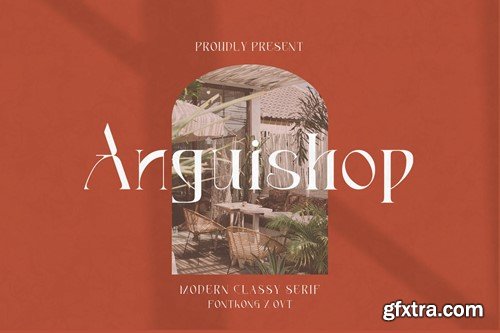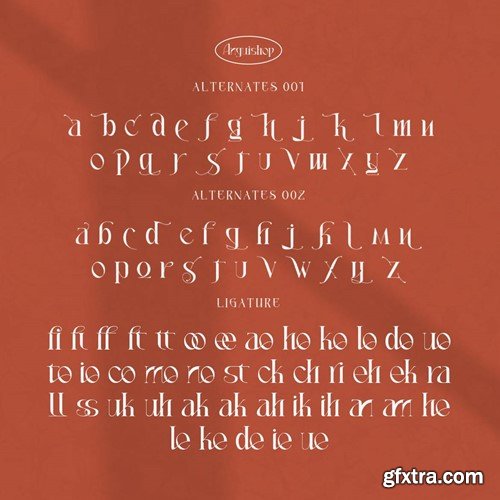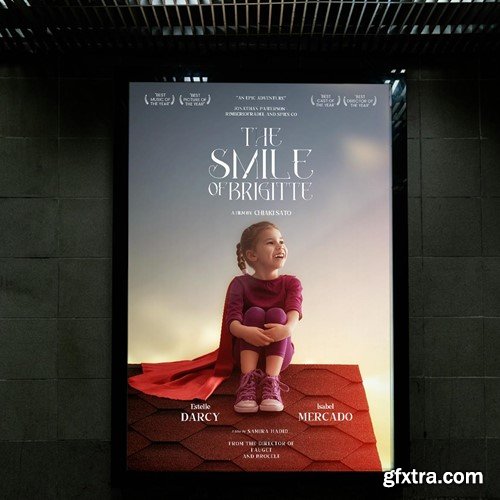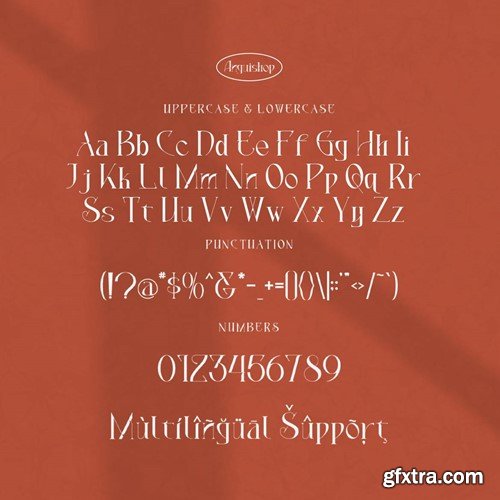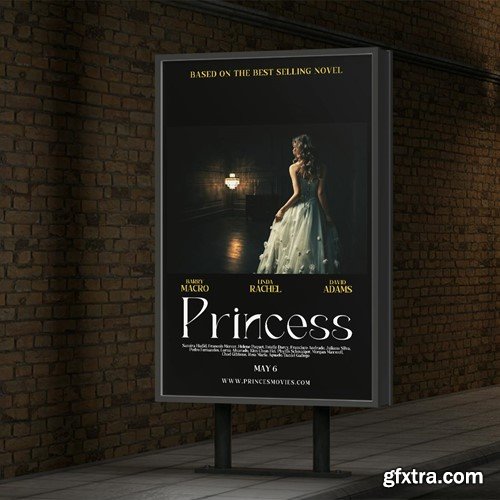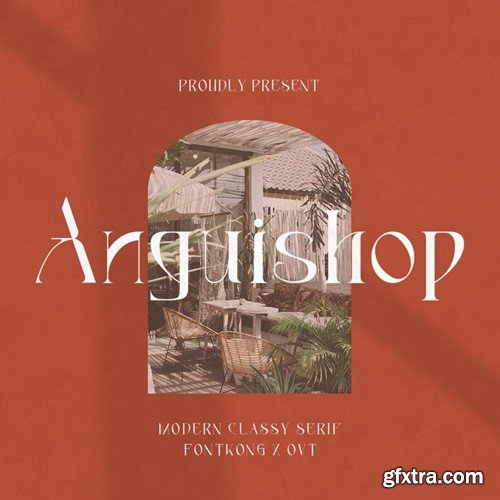
anguishop - 现代简约衬线字体 6CBLEYG
Anguishop - Modern Classy Serif Font Introducing "Anguishop," a modern and classy serif font designed for sophistication and style. This typeface captures the essence of contemporary elegance, blending traditional serif characteristics with a sleek modern twist. Perfect for designers who appreciate finesse in their typography, Anguishop is ideal for luxury branding, high-end editorial content, and sophisticated advertising. You will receive the font files in TTF, OTF, and WOFF formats With its refined curves and sharp, clean lines, Anguishop ensures outstanding readability and aesthetic appeal. This font's versatility makes it suitable for a broad range of applications, including book covers, magazine layouts, corporate branding, and digital platforms. It includes a comprehensive set of weights, italics, numerals, punctuation, and extensive language support, providing everything needed to create compelling and cohesive designs. Whether you're looking to elevate a boutique’s branding or enhance the readability of an annual report, Anguishop delivers with its unique blend of classic grace and modern flair. It’s the perfect serif font for creating a powerful impression that resonates with a sense of luxury and style. Anguishop is your essential serif font for adding a touch of class and modernity to your design toolkit.